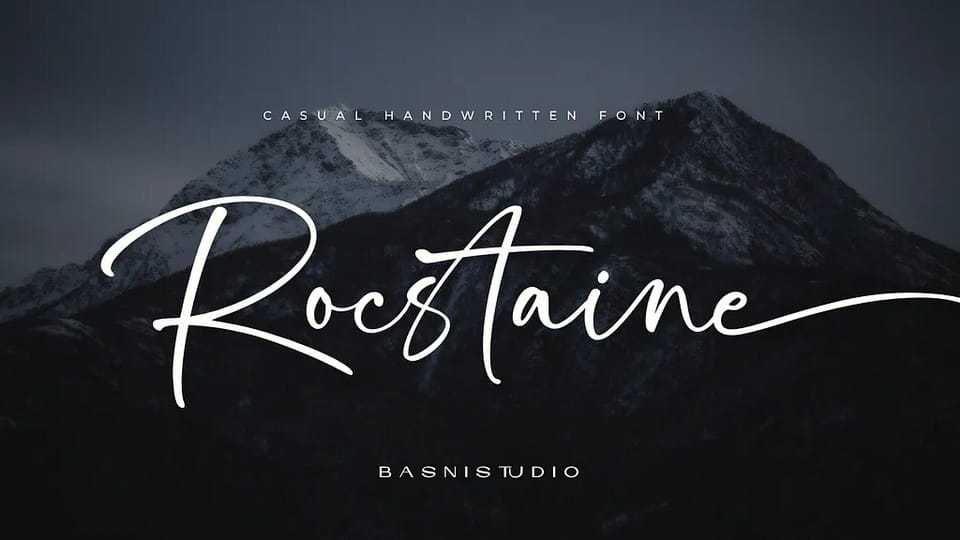
Download Rocstaine font, a casual handwritten typeface crafted with authentic brush for natural and elegant touch. Perfect for everything from branding and social media to invitations and packaging.